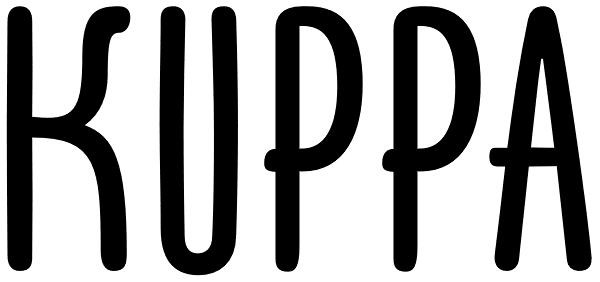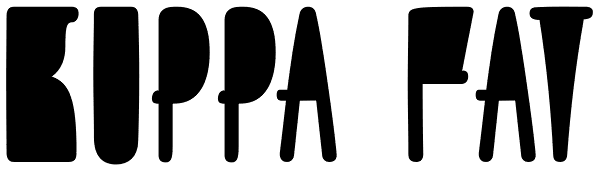
Kuppa
Kuppa is a yummy display unicase with a lot of attitude. Two styles within the Kuppa family a like brothers — look alike and still completely different. Both brothers have 555 glyphs, including alternates, ligatures, fractions and even german...
Kuppa
Kuppa Fat
Kuppa Basic
Kuppa Basic Fat